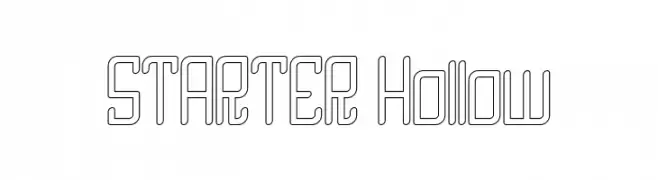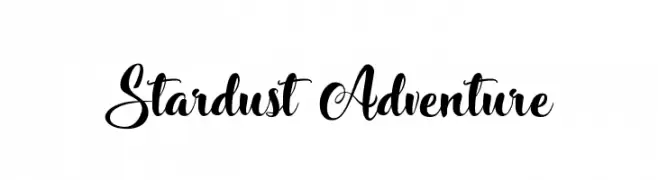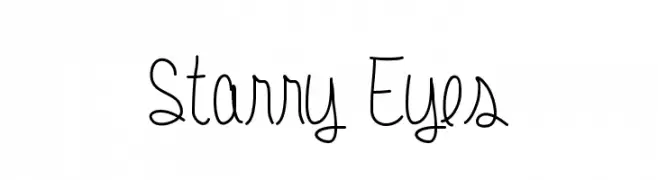
A whimsical and flowing script font with elegant curves and flourishes.
A bold, hand-drawn font with a playful and energetic style.
A playful, handwritten font with a bold, rounded style.
A whimsical, handwritten font with playful loops and elegant curves.
A modern, geometric font with clean lines and rounded corners, offering a futuristic and minimalistic style.
A modern, geometric font with rounded edges and a tubular design.
A modern, hollow, geometric font with outlined letterforms.
A dynamic, handwritten font with sharp, angular strokes and a whimsical style.
A bold, industrial font with sharp, angular edges and a vintage feel.